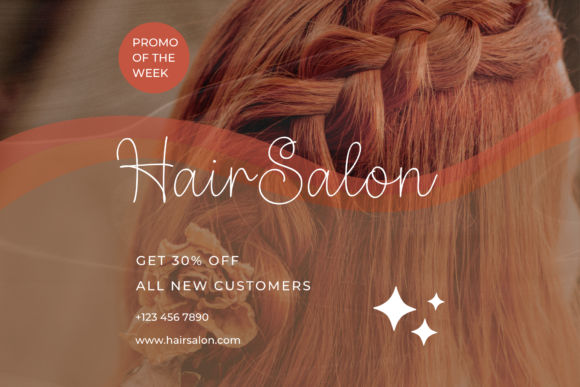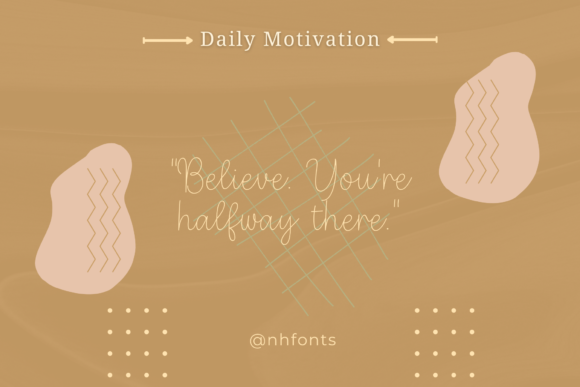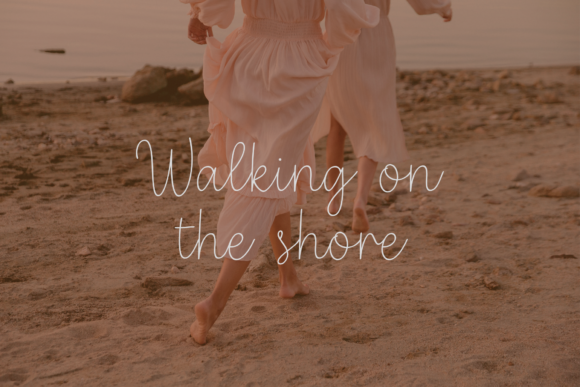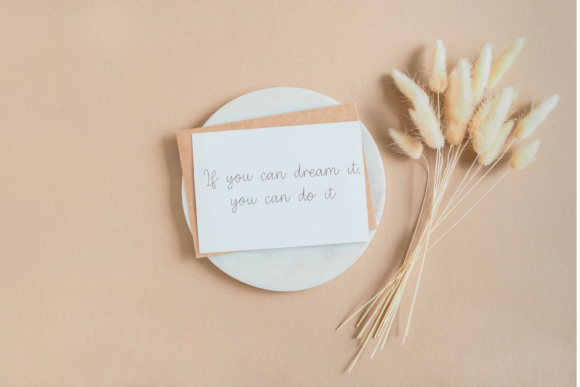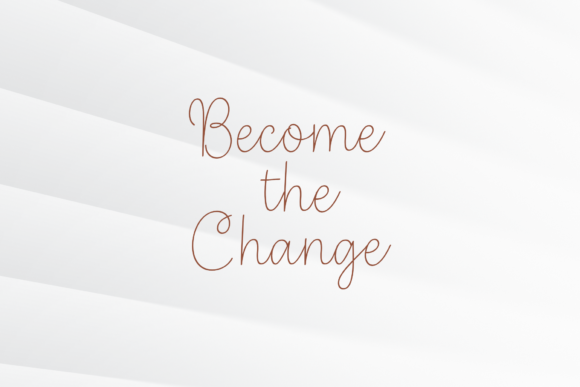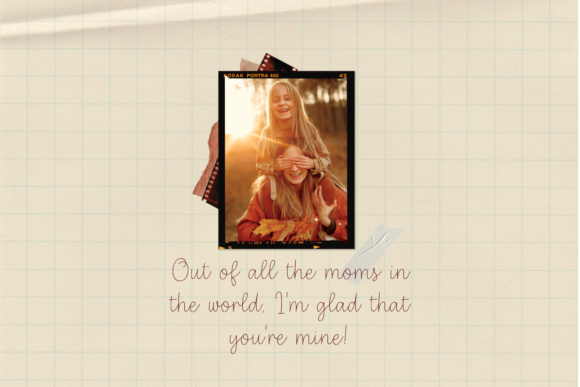
Introduction to Headstay Font
Do you remember that moment when you’re working on a creative project and you’re searching for the perfect font to give it that extra oomph? You’ve tried so many, but nothing seems to fit the vibe you’re going for. Well, we’ve got some great news for you – we’ve discovered the Headstay Font, and it’s a game-changer.
This beautiful script font is not only elegant and modern, but it’s also incredibly versatile. Whether you’re designing a logo, branding materials, or even wedding invitations, the Headstay Font is sure to impress. Its classy and refined look makes it a valuable resource for any designer looking to elevate their creative project.
Key Features of Headstay Font
- High-quality design resource with a unique, creative style perfect for various projects.
- Features a transparent background, allowing for easy customization and versatility.
- Perfect for use in logos, branding materials, and other creative projects where a unique, eye-catching font is required.
Honest Review: Headstay Font
I recently had the chance to work with the Headstay Font, and I must say it’s a great addition to any design project. ✨ The font is clean, modern, and versatile, making it perfect for a wide range of creative projects.
- High quality: The font is well-crafted, with smooth lines and a professional feel.
- Transparent background: This feature allows for seamless integration with other design elements.
However, I did encounter a few limitations ⚠️:
- Limited character set: The font doesn’t support a wide range of languages, which can be a problem for international projects.
- No bold or italic styles: While the font is great for body text, it may not be suitable for headings or emphasis.
Overall, I’m impressed with the Headstay Font. It’s a great design resource that can elevate any creative project. While it may not be perfect, its strengths far outweigh its limitations.
Headstay Font
Getting the Most Out of Headstay Font
To get the most out of this design resource, experiment with different font sizes, colors, and arrangements. Combine Headstay Font with other design elements to create a unique look that reflects your brand or style.
Headstay Font is perfect for designers, marketers, and small business owners who want to add a touch of sophistication to their creative projects. Use it for logos, branding materials, social media graphics, and more.